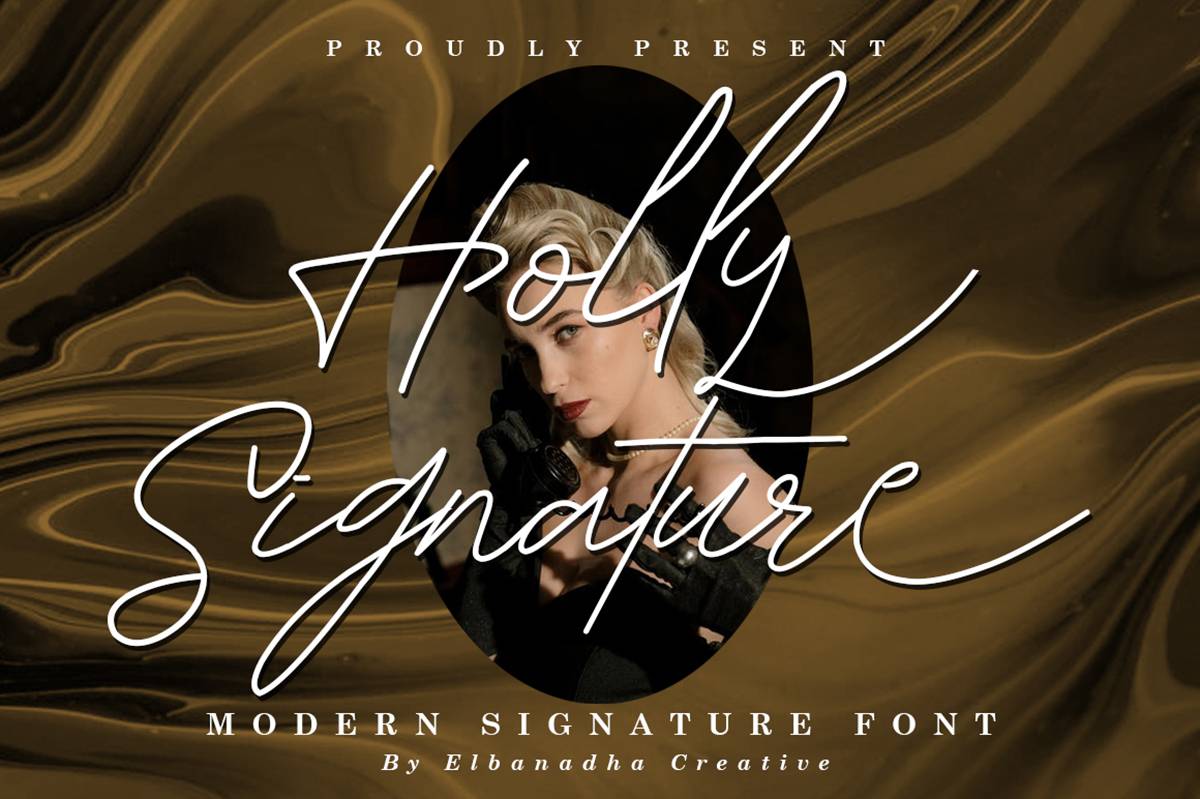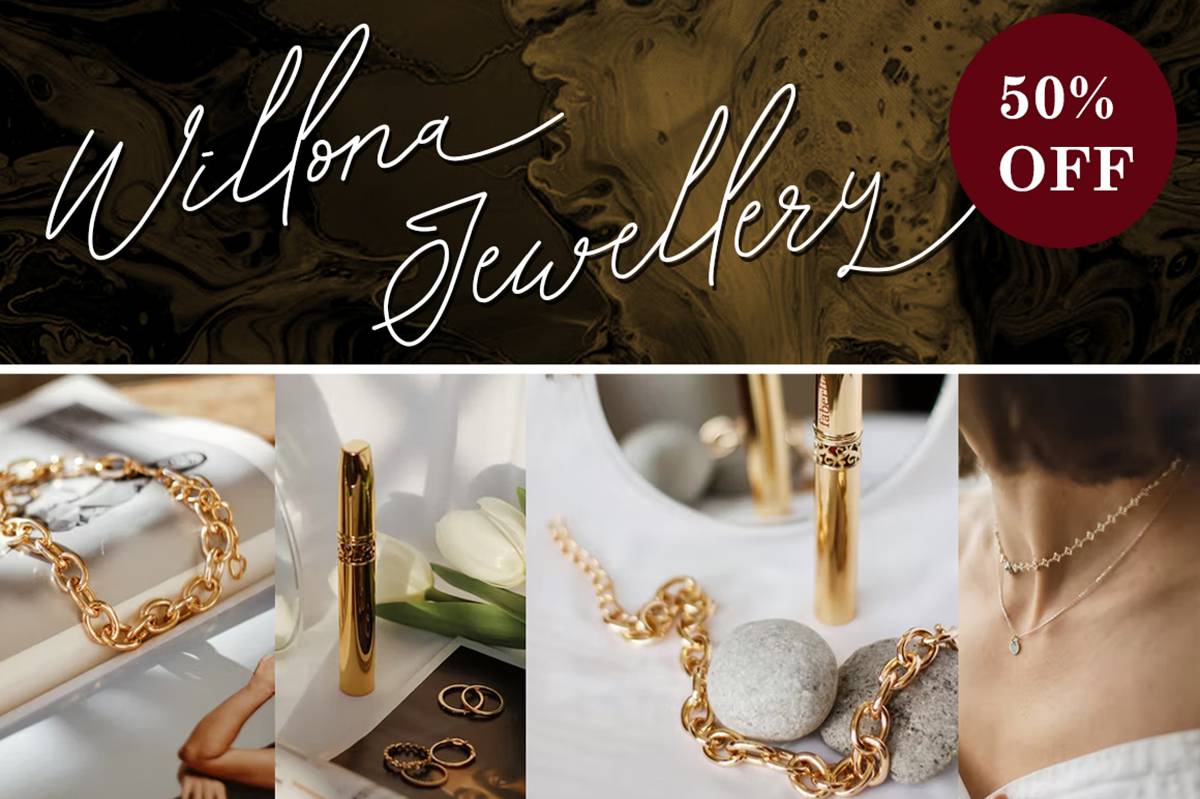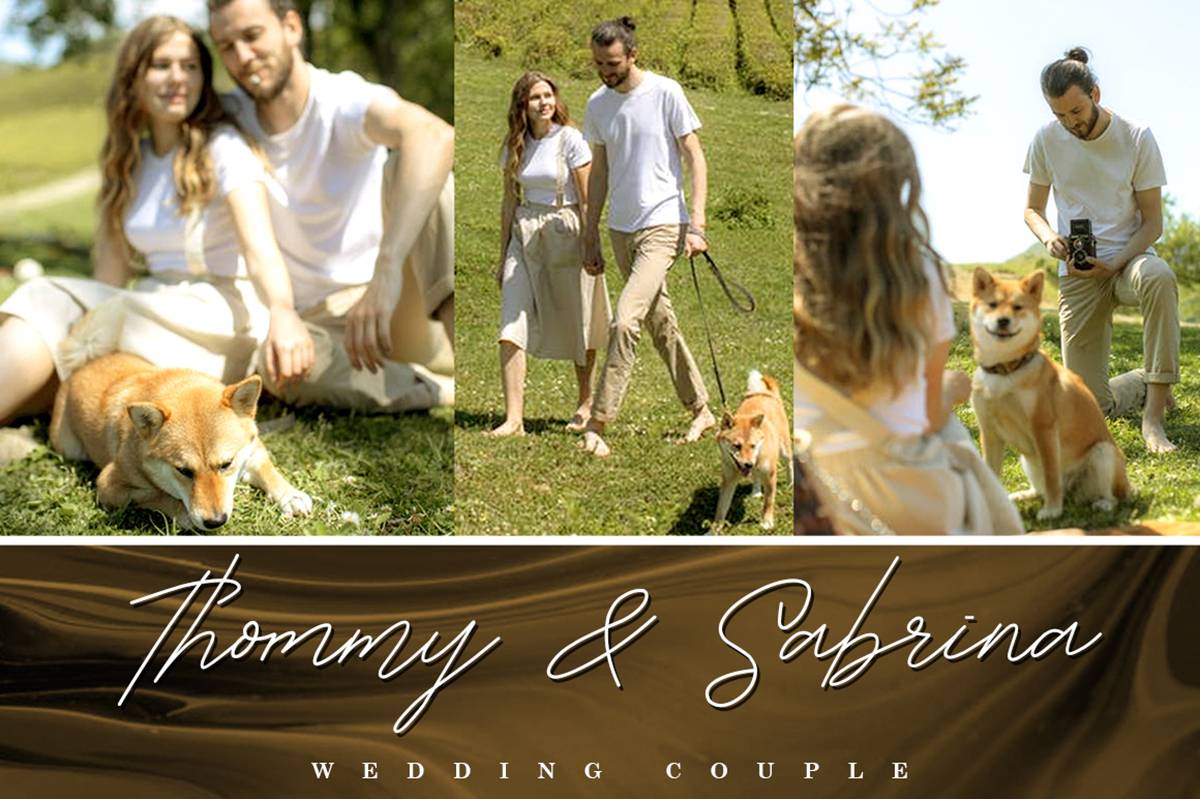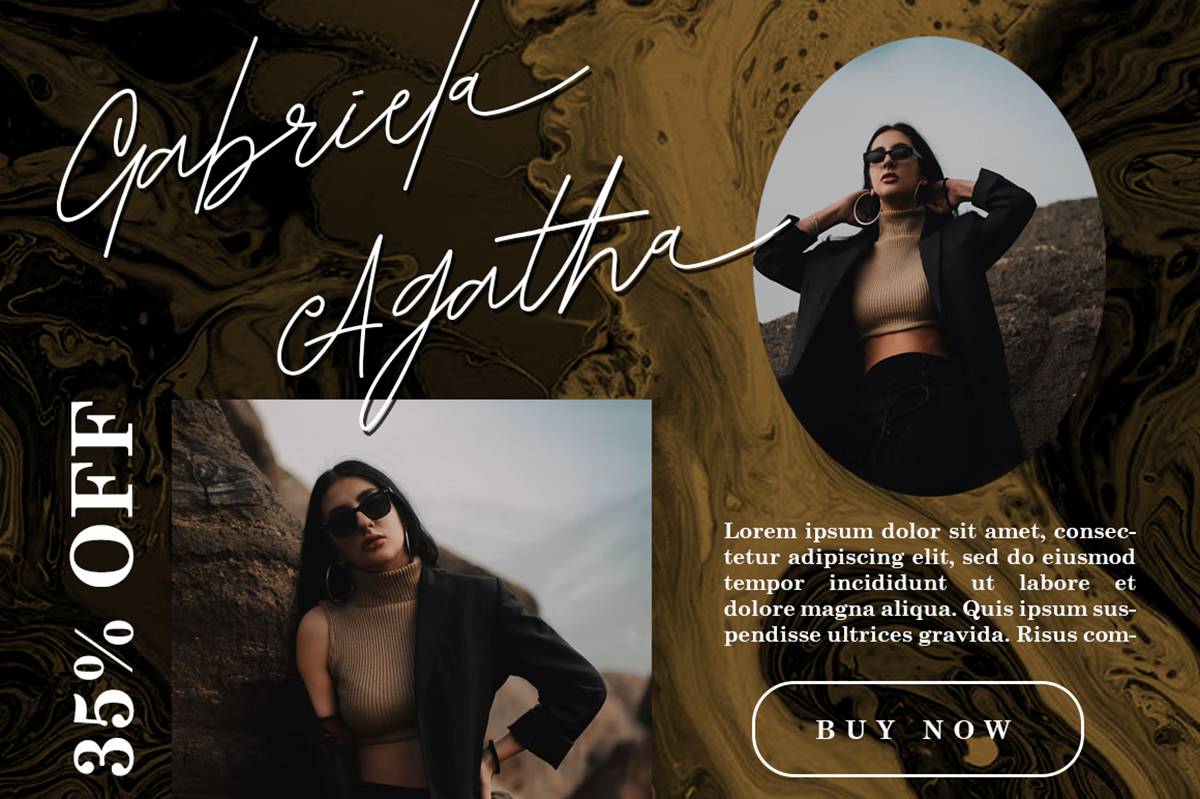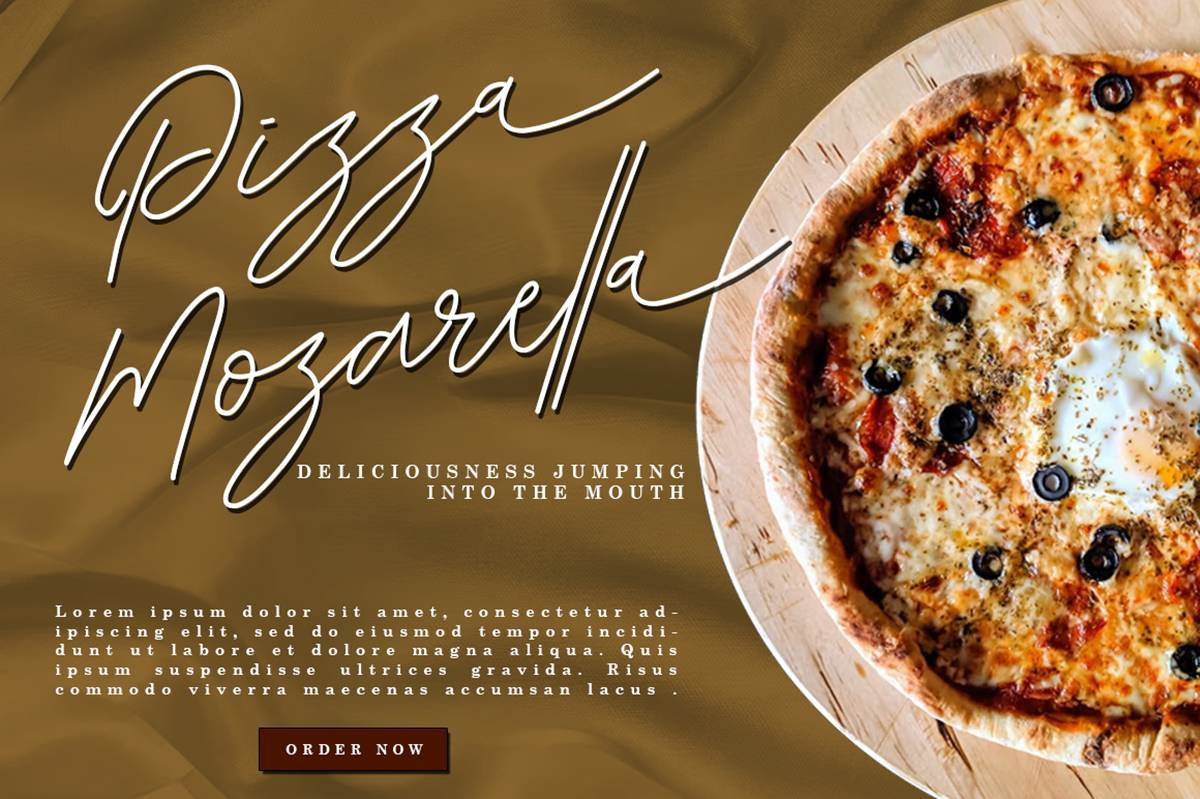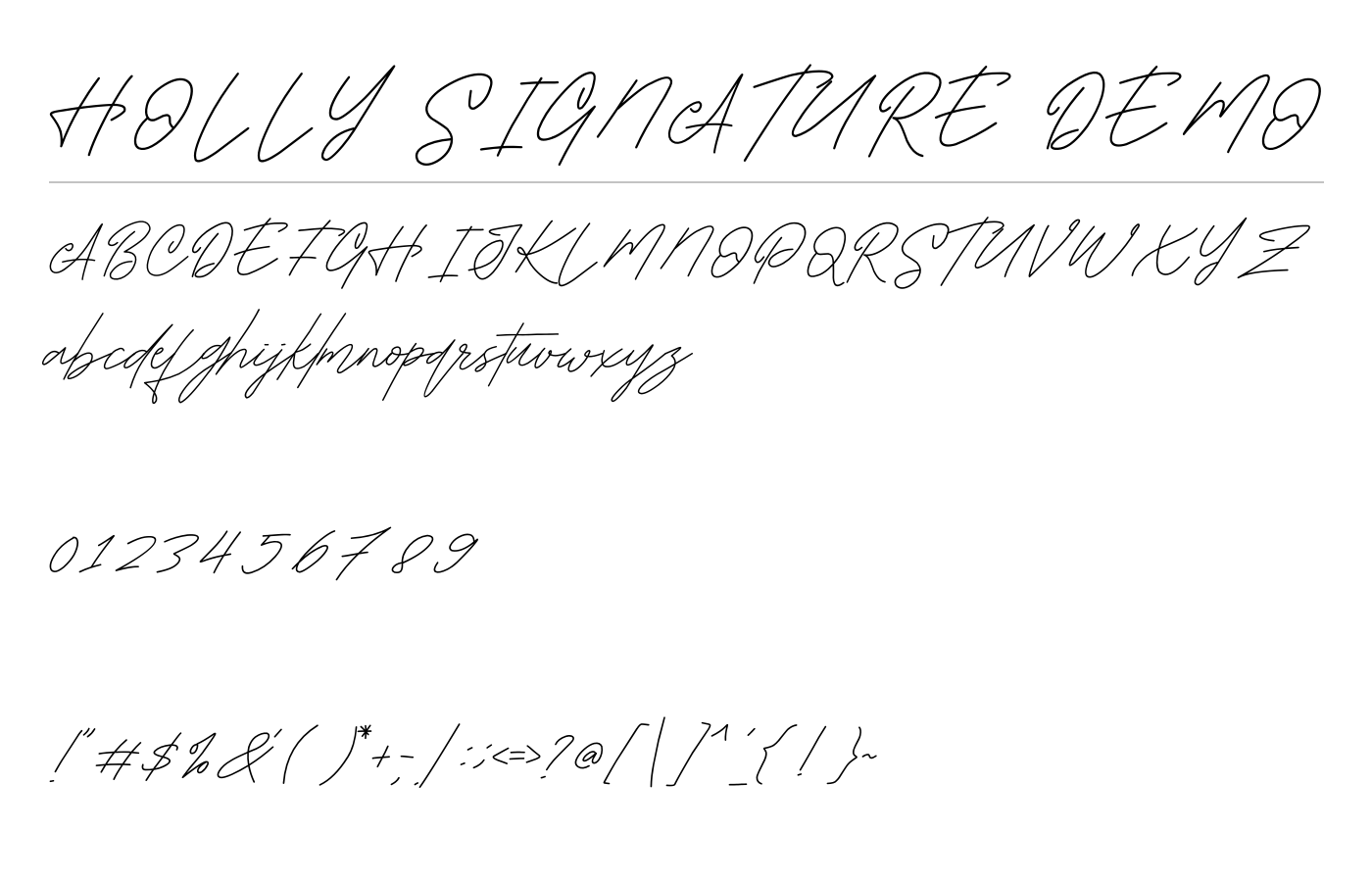
Holly Signature Font is a delicate, elegant script with a handwritten feel, featuring slender, flowing strokes that mimic natural penmanship. Its light weight and airy spacing give it a refined, personal touch, making it ideal for branding, invitations, and stylish logos that require a modern yet intimate vibe. This font shines in contexts where a graceful, sophisticated expression is desired, such as fashion, beauty, or luxury design projects.
Holly Signature Font
About Holly Signature Font